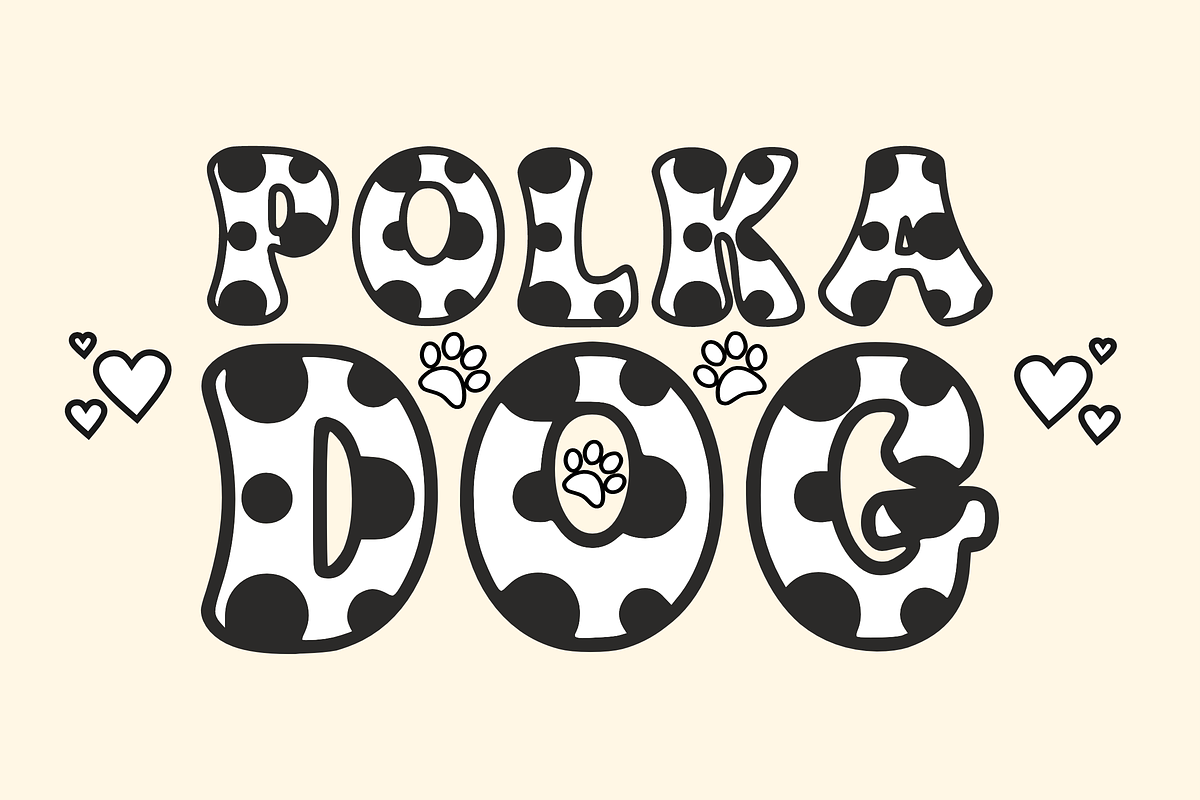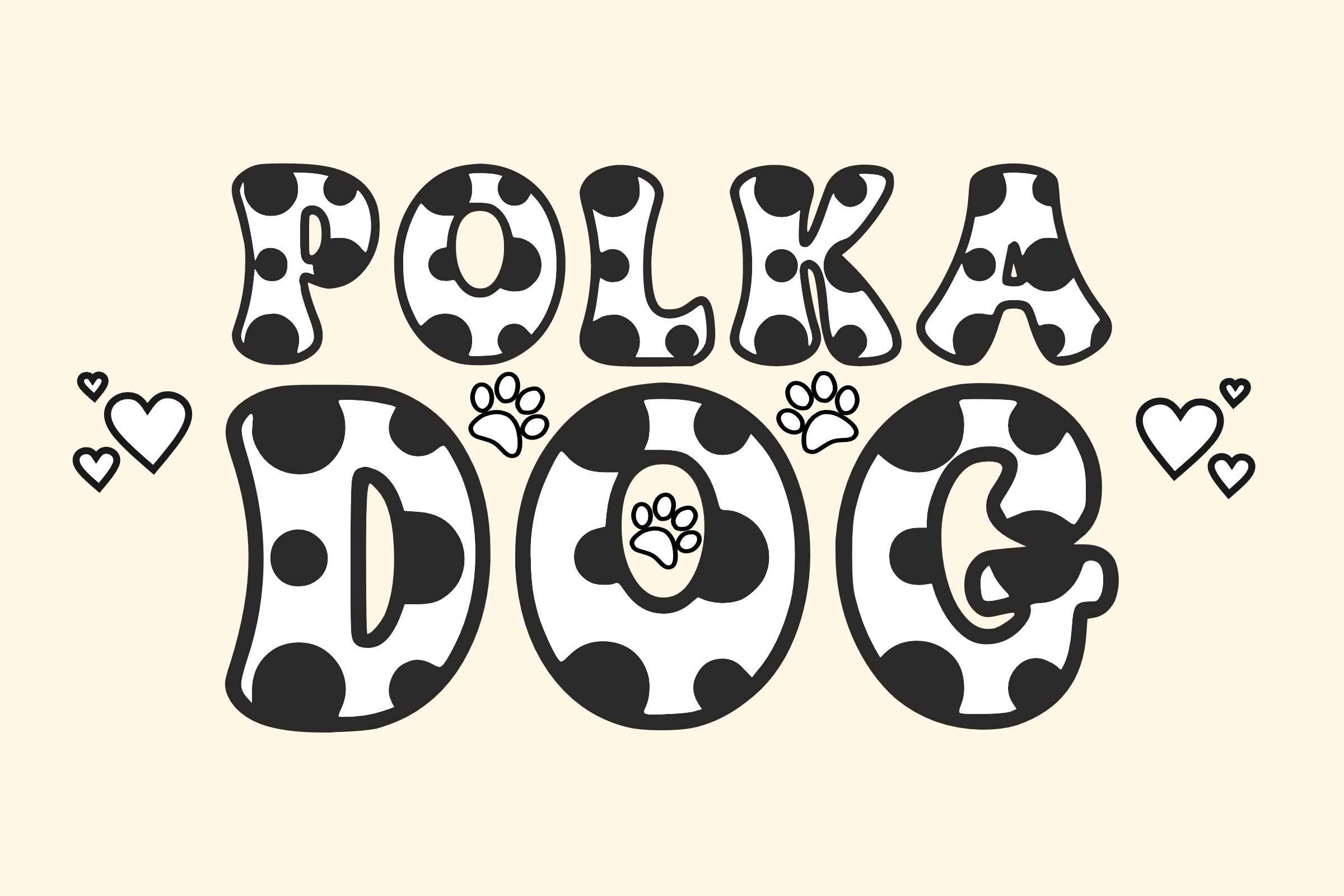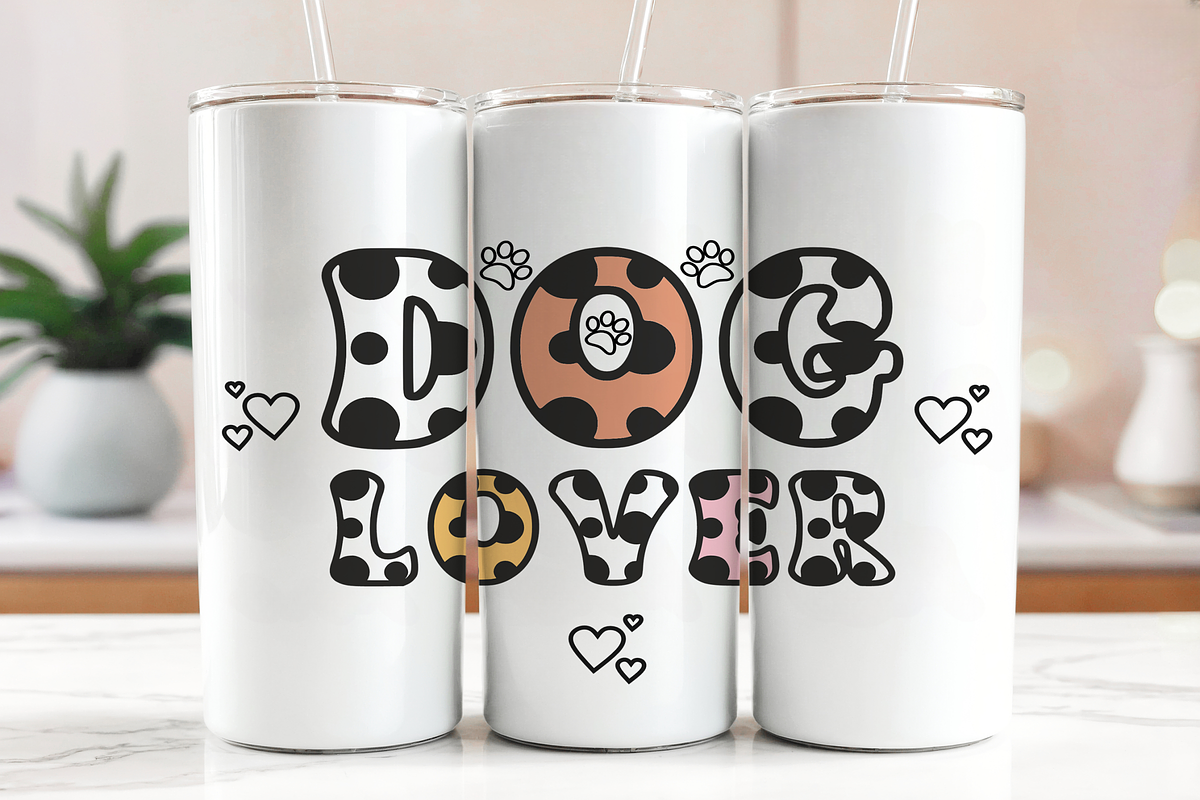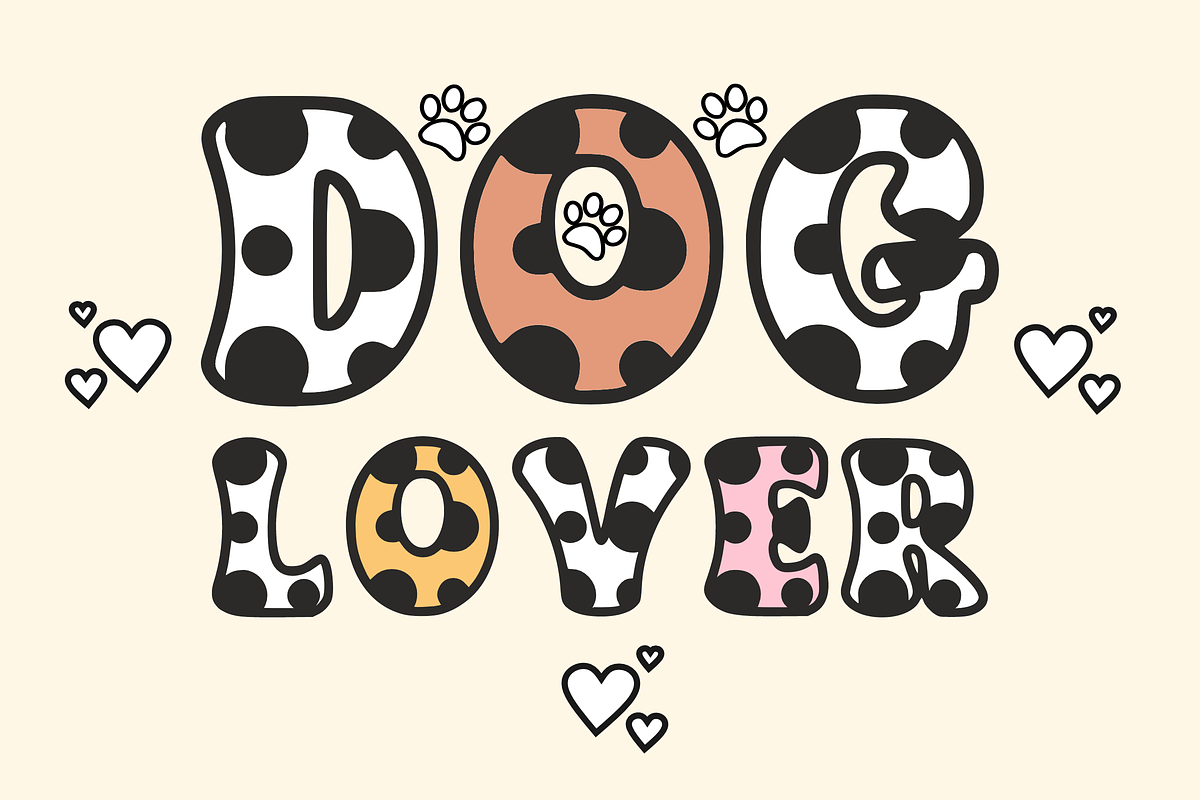
Polka Dog - Display Font
🐶 Polka Dog - Playful Dotted Display Font 🐾 Unleash your creativity with Polka Dog! This adorable display font features bold, chunky characters filled with a delightful polka-dot pattern that feels like a wagging tail in every letter. Designed with a clean "sticker-style" outline and a bouncy rhythm, it perfectly captures a friendly and energetic vibe.
Whether you're designing for a pet brand or a fun kids' project, Polka Dog makes your message stand out with a "paws-itively" charming look!
✨ Main Features: 🎾 Dotted Uppercase: Chunky, rounded letters with a playful "dalmatian-style" pattern.
🔢 Numbers 0-9: Perfectly coordinated dotted numerals for all your data.
🦴 Simple Symbols: Essential punctuation to add that perfect finishing touch.
✂️ Sticker Ready: Smooth, high-quality outlines ideal for vinyl cutting and labels.
🎨 Perfect For: 🐾 Pet Branding: Pet shop logos, grooming flyers, and dog treat packaging.
🧸 Kids & Nursery: Baby shower invites, nursery wall art, and toy branding.
🏫 School Projects: Classroom banners, teacher resources, and school posters.
🎂 Birthdays: Puppy-themed invitations, cake toppers, and party banners.
📱 Social Media: Vibrant YouTube thumbnails and cute pet-focused quotes.